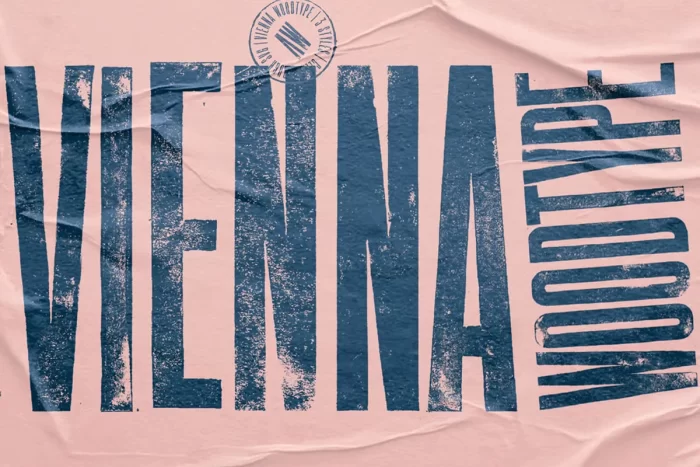
Vienna Woodtype is a sans serif font based on real prints made out of a linocut. The glyphs were handprinted, then scanned and then turned into a computer font. Available in a Clean, Rough and in a SVG Version. It can be used for various purposes such as magazine title, poster, logo, t-shirt, sub title, business cards, magazines, book covers, wedding invitations, templates, instagram story post, greeting cards, quotes, etc.